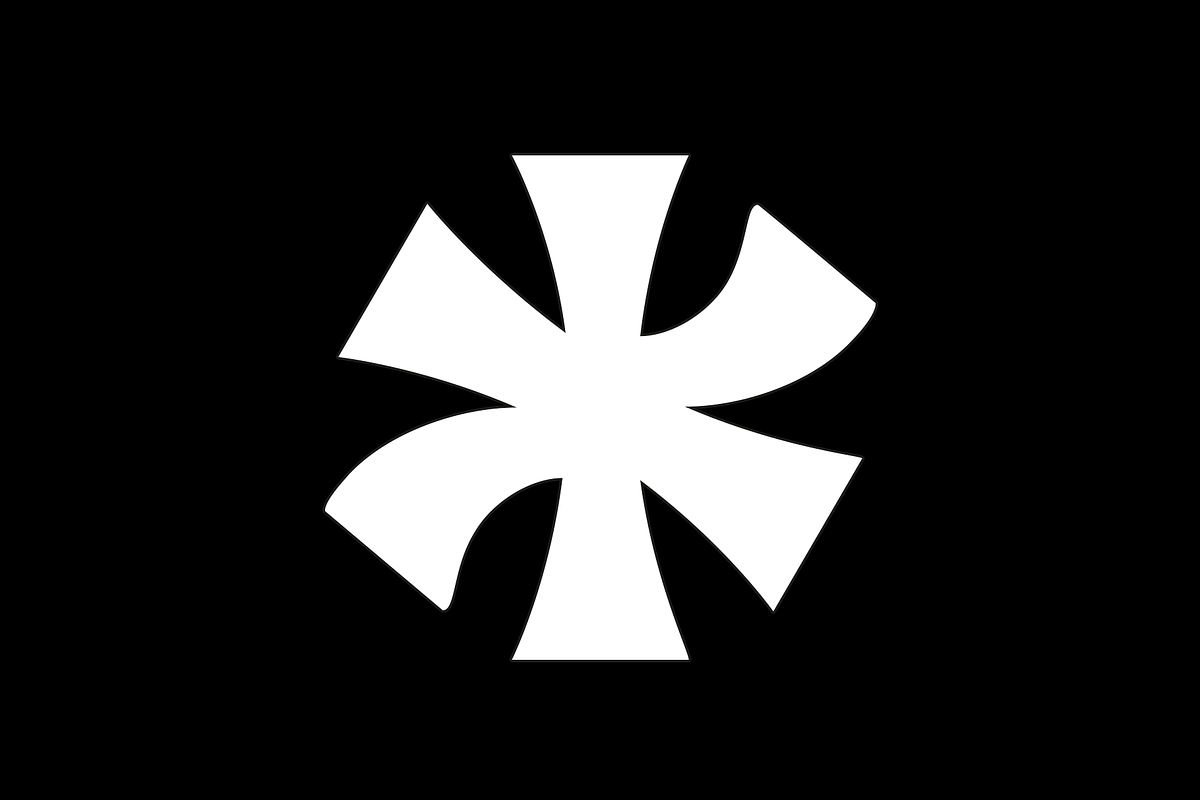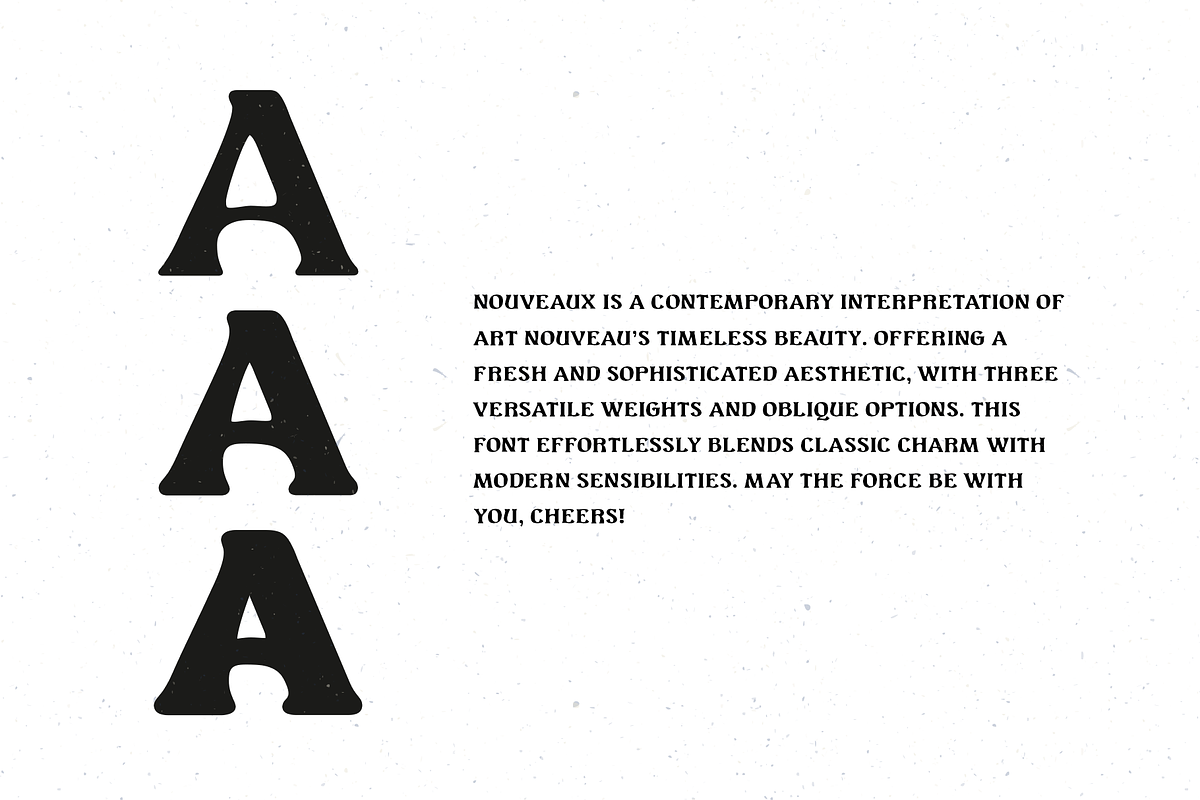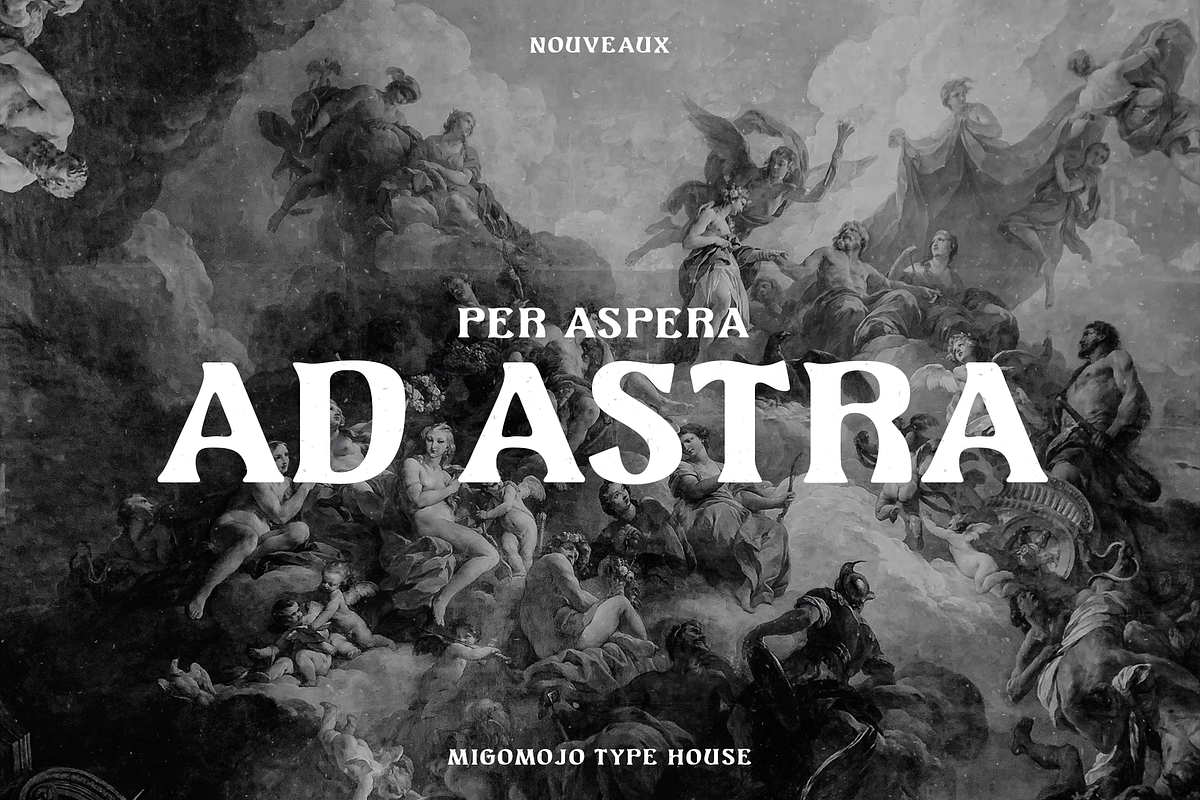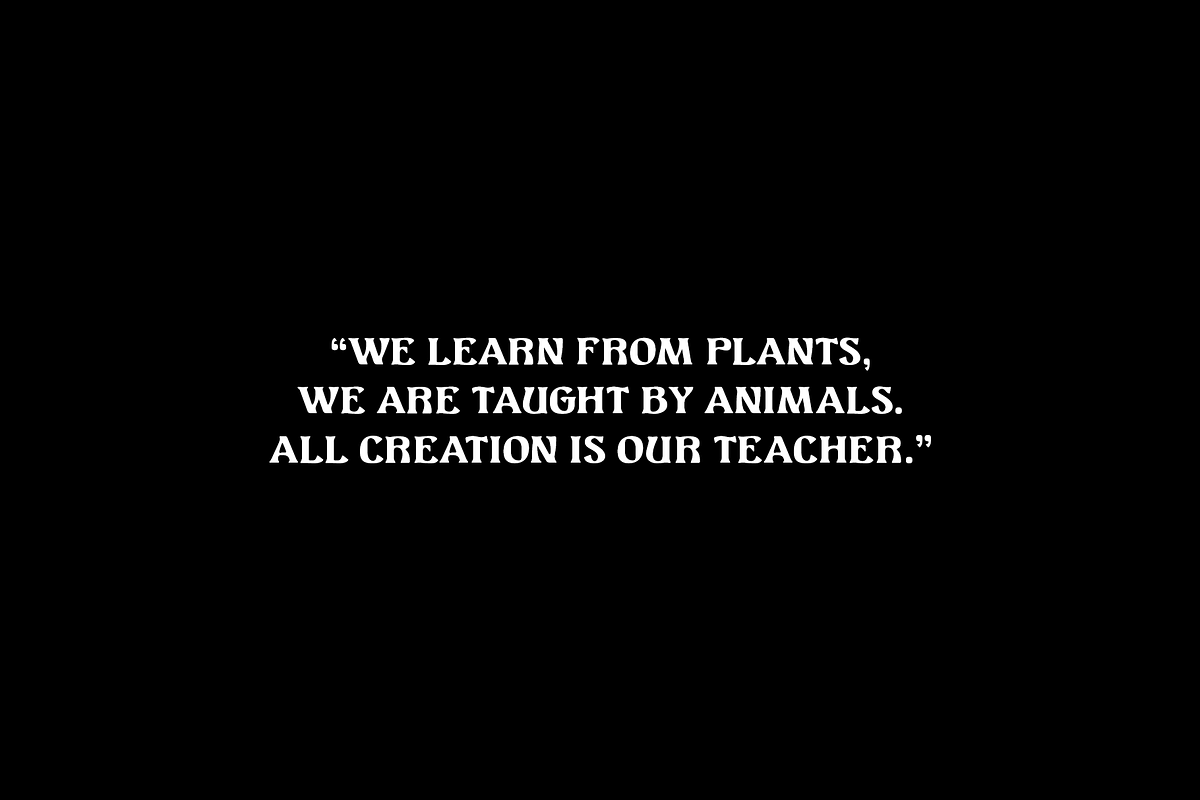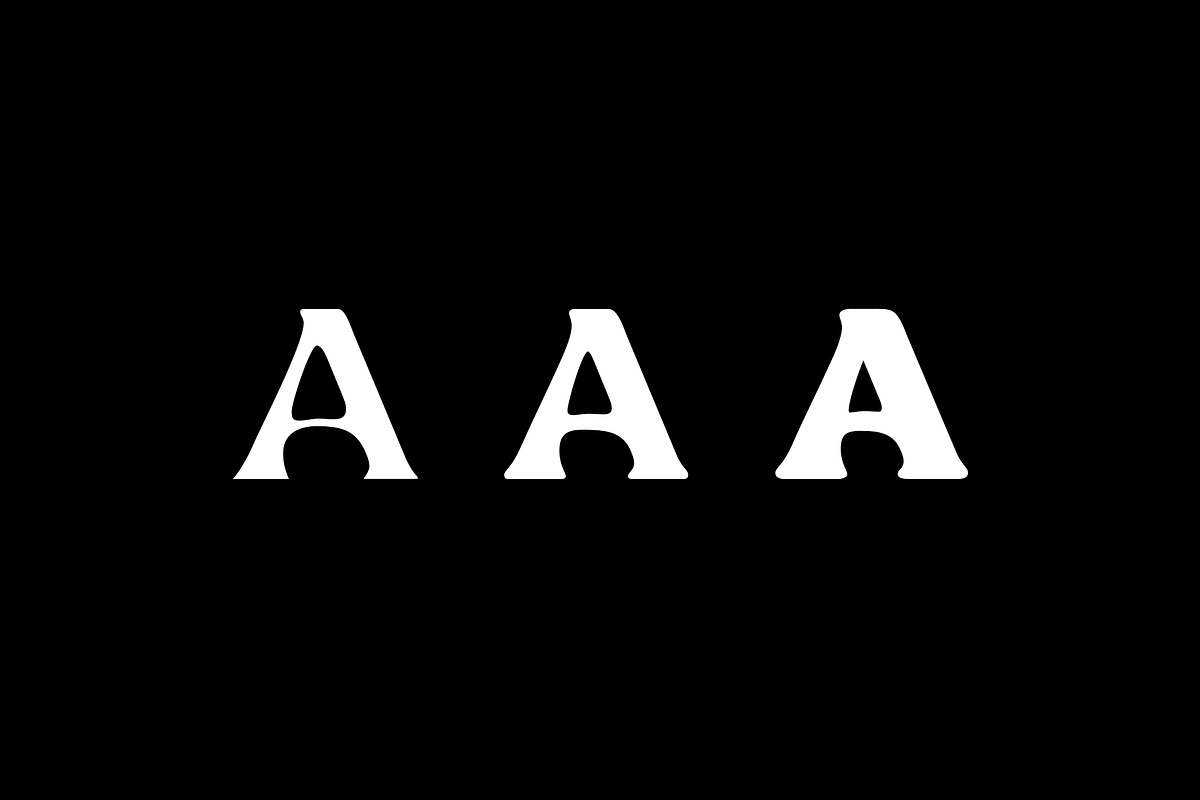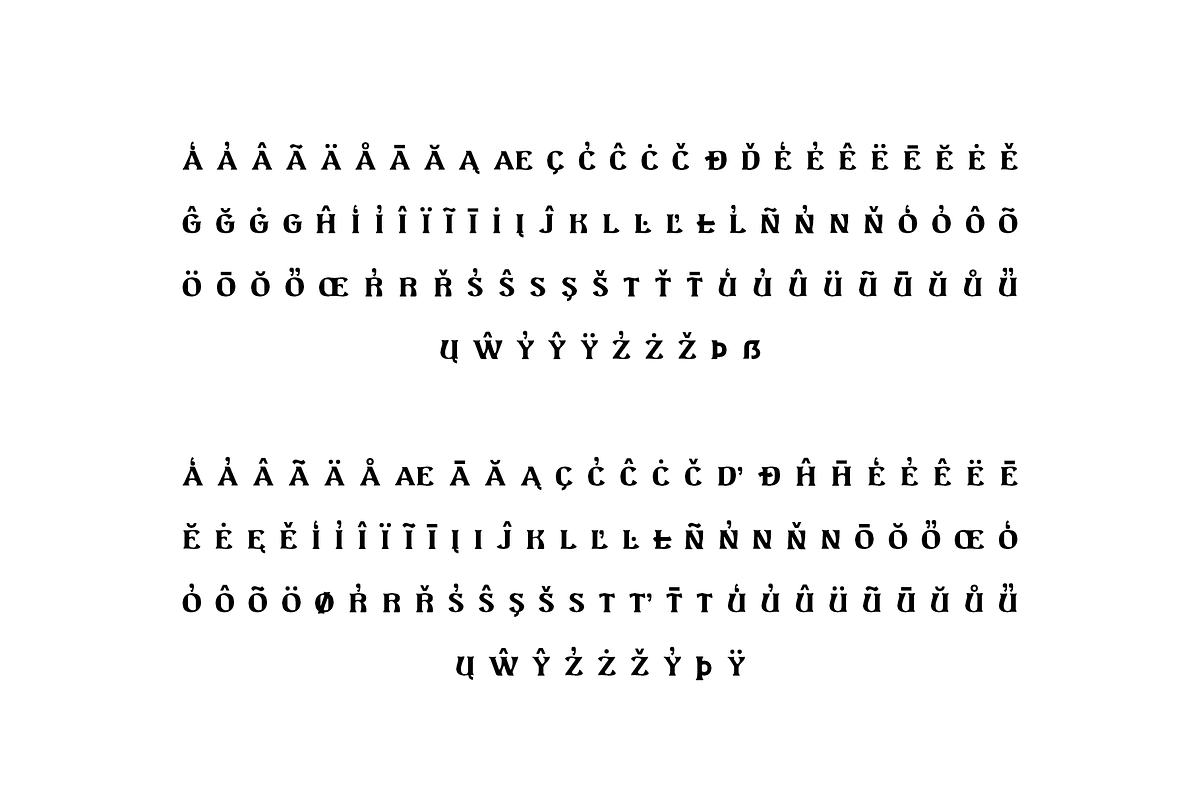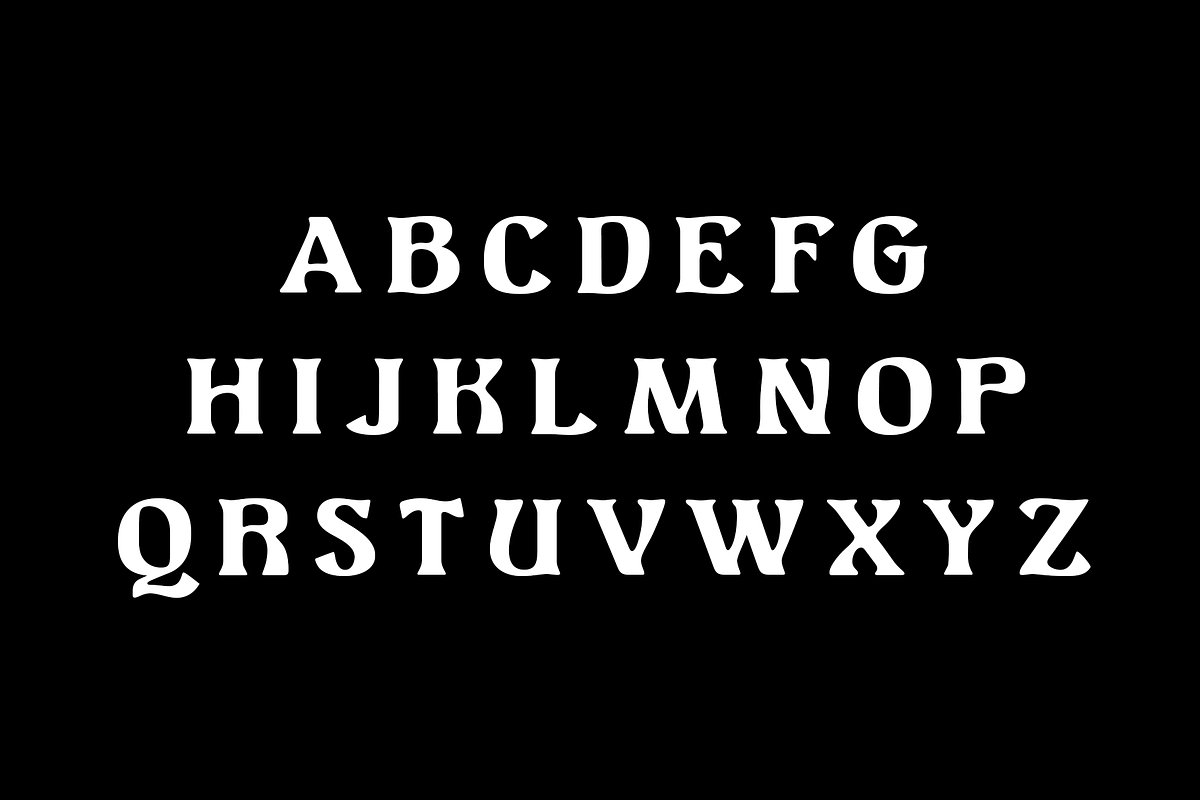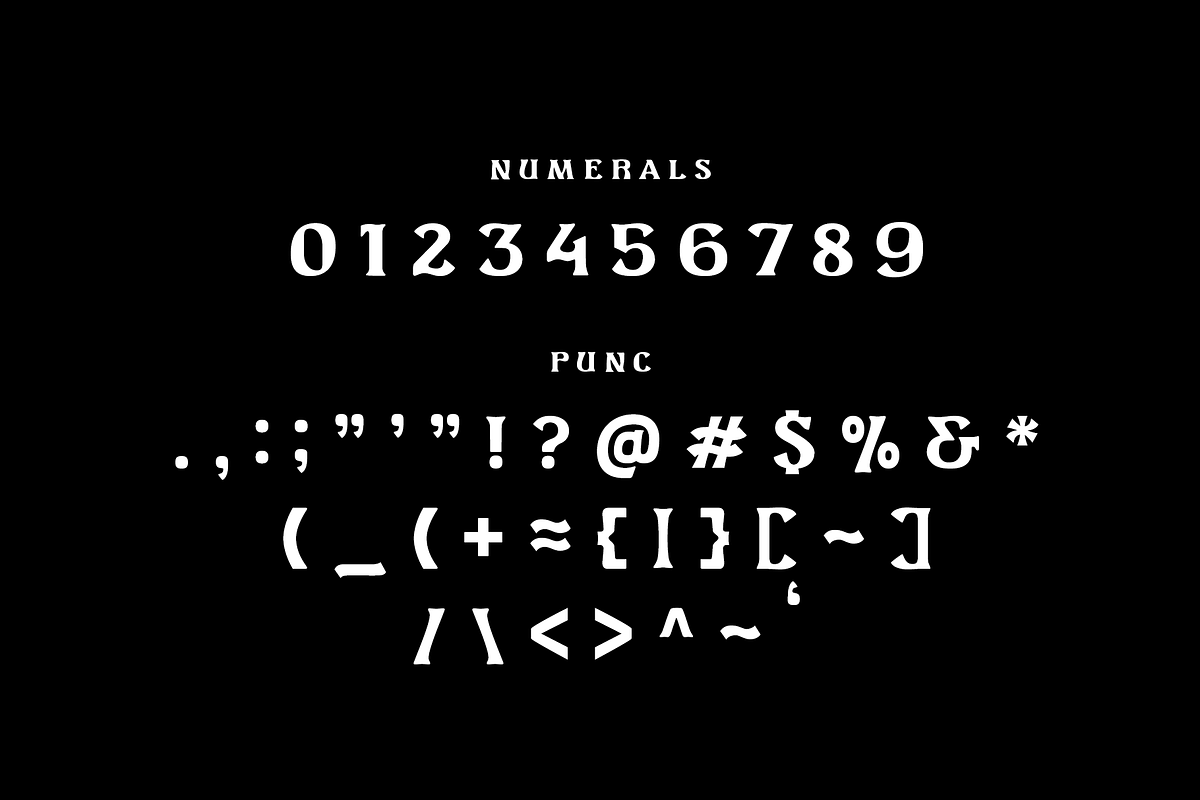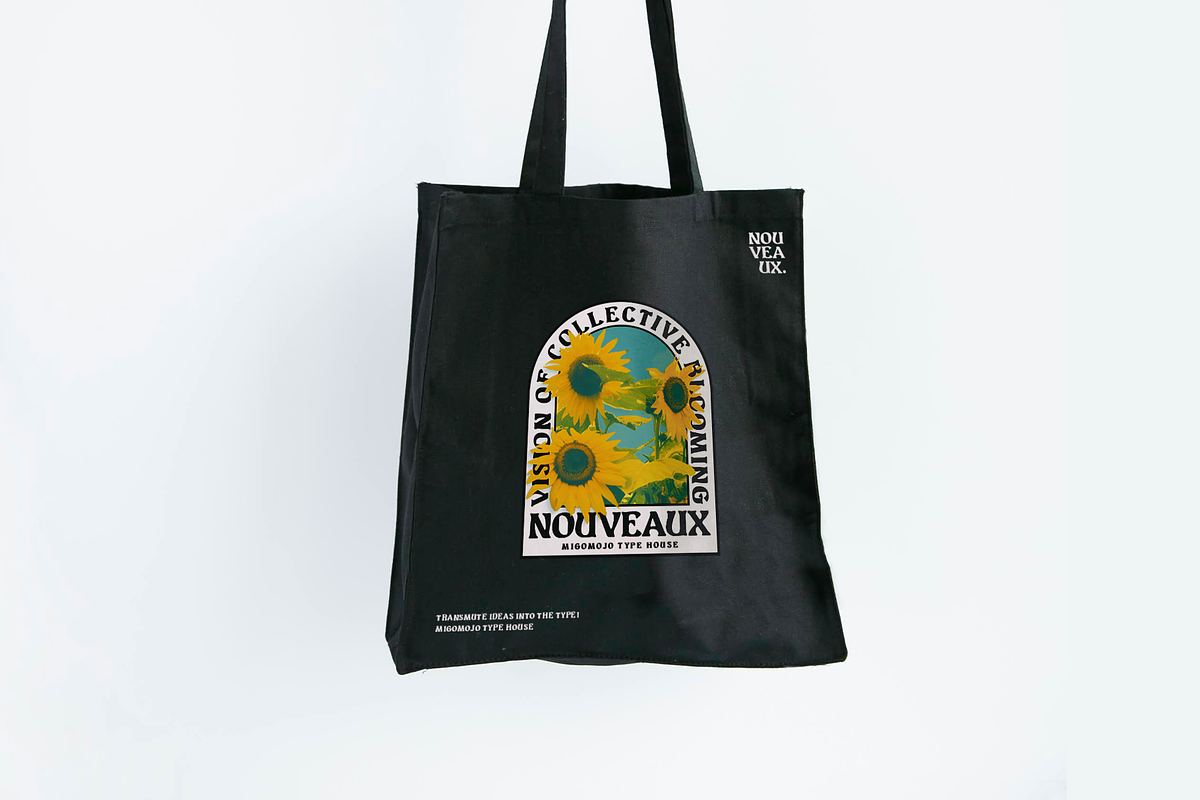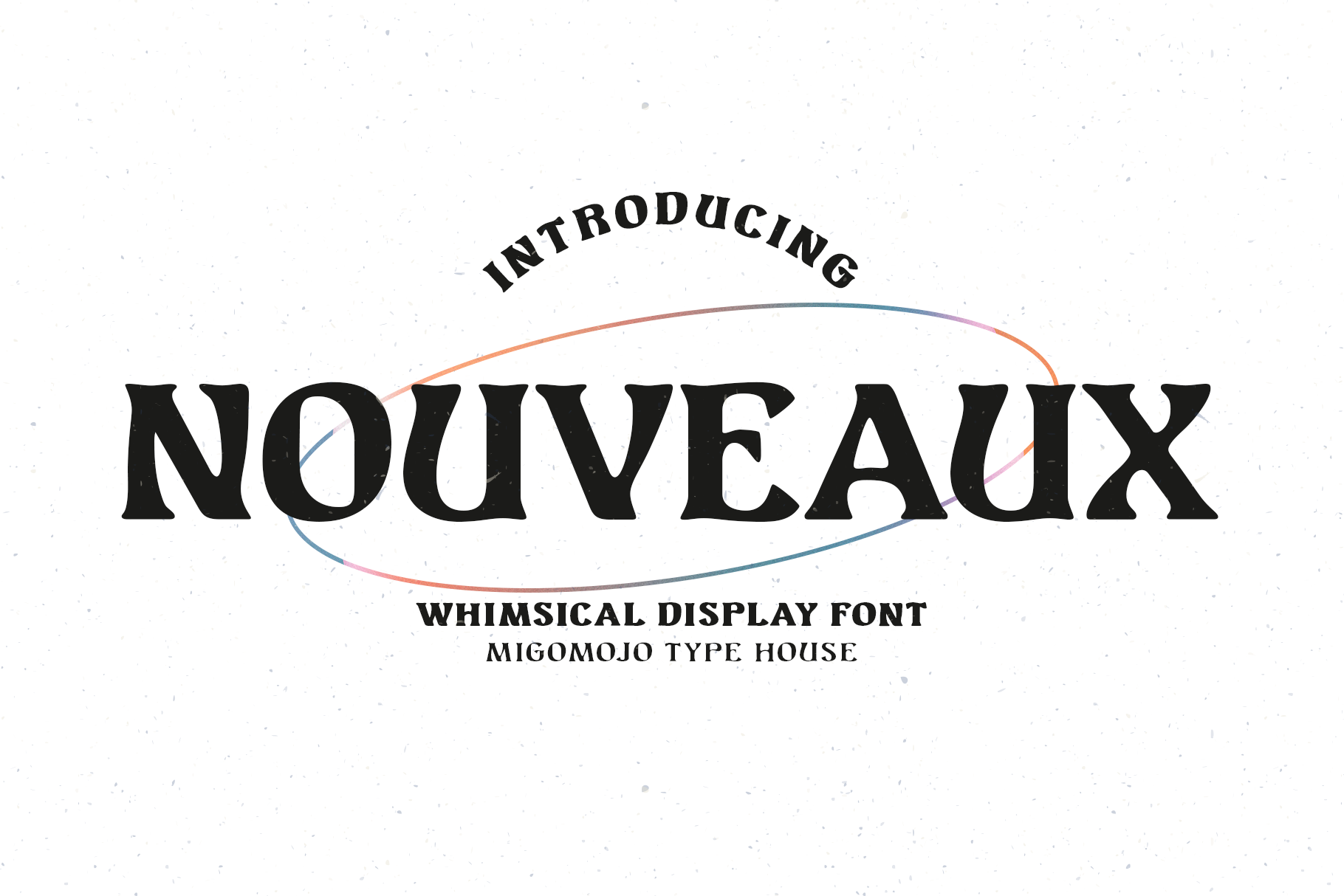
Nouveaux Font Family
Nouveaux is a contemporary Art Nouveau's font. Offering a fresh and sophisticated, With three versatile weights and oblique options. this font effortlessly blends classic charm with modern sensibilities. May the force be with you, cheers!